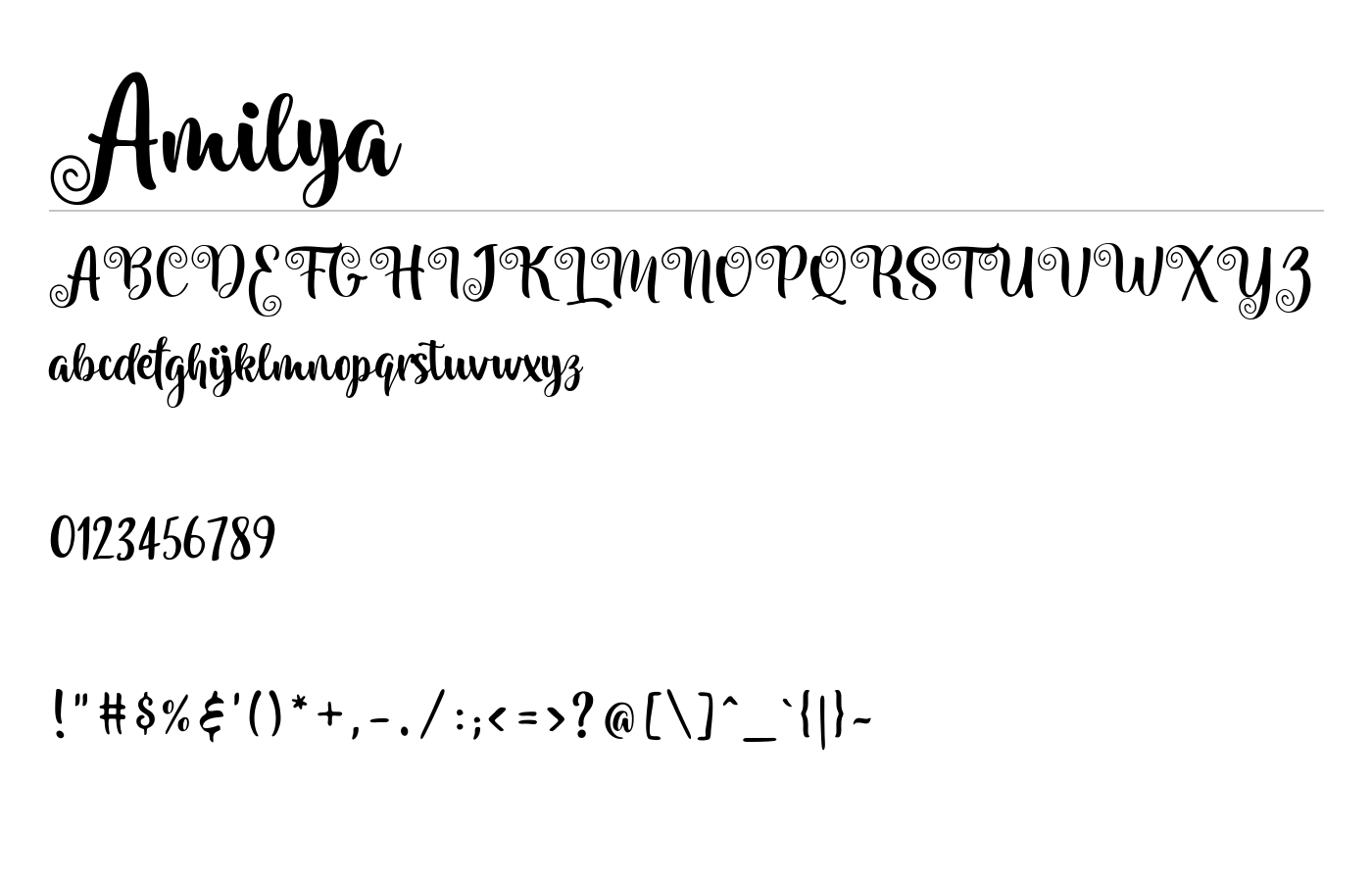
Amilya is a playful and elegant script font with a lively personality, featuring smooth, flowing strokes and stylish swirls on its uppercase letters that add a whimsical touch. Its moderate weight and slightly condensed width make it suitable for eye-catching headlines or branding that seeks a friendly, creative vibe. Perfect for invitations, logos, and packaging, Amilya brings a charming and approachable feel to any design.
Amilya Font
About Amilya Font
| Designer | Aqeela Studio |